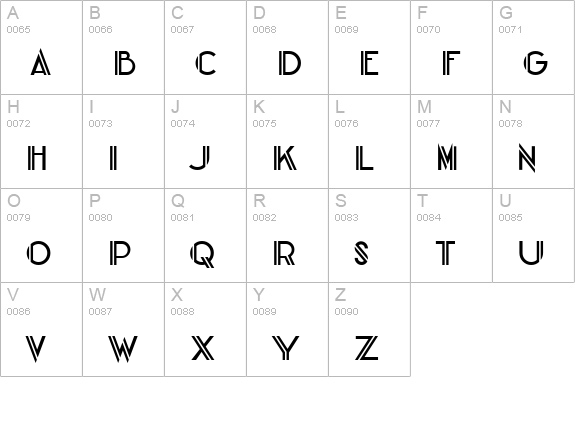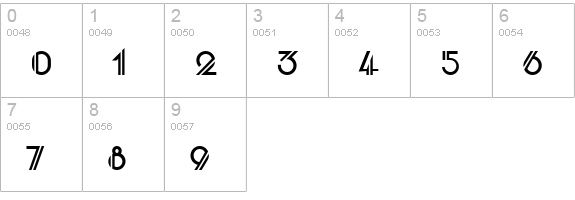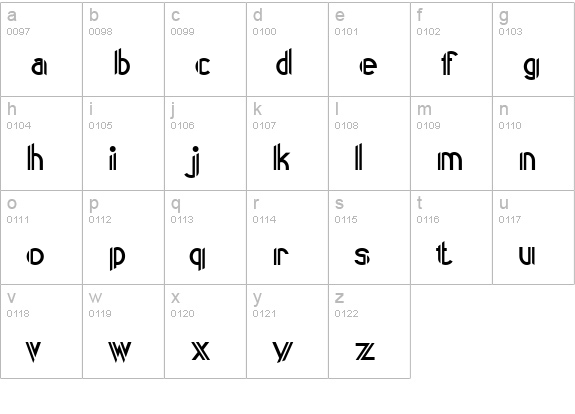
CentreClaws Font Details
Introducing CentreClaws, a stunning font that combines elegance and modernity in perfect harmony. This exquisite typeface is sure to captivate and inspire with its intricate details and unique flair. CentreClaws is the perfect choice for any design project that demands a touch of sophistication and creativity. Its sleek lines and sharp edges make it ideal for headlines, logos, branding materials, and more. Whether you're designing a sleek magazine layout or crafting eye-catching social media posts, CentreClaws will elevate your work to new heights. What sets CentreClaws apart is not only its impeccable design, but also its accessibility. This font is freely available to download at FontsMarket.com, making it a valuable asset for designers and creatives alike. With just a few clicks, you can add CentreClaws to your font library and start incorporating its elegance into your projects. With its extensive character set, CentreClaws offers versatility and flexibility. From uppercase letters to lowercase, numerals, punctuation marks, and special characters, this font has everything you need to bring your vision to life. Its smooth curves and balanced proportions create a harmonious flow, adding a touch of class to any design. Whether you're a seasoned designer or just starting out, CentreClaws is a font that will enhance your creative endeavors. Its timeless appeal and modern edge make it a must-have in any designer's toolkit. Download CentreClaws for free at FontsMarket.com and unlock the potential of this extraordinary typeface.